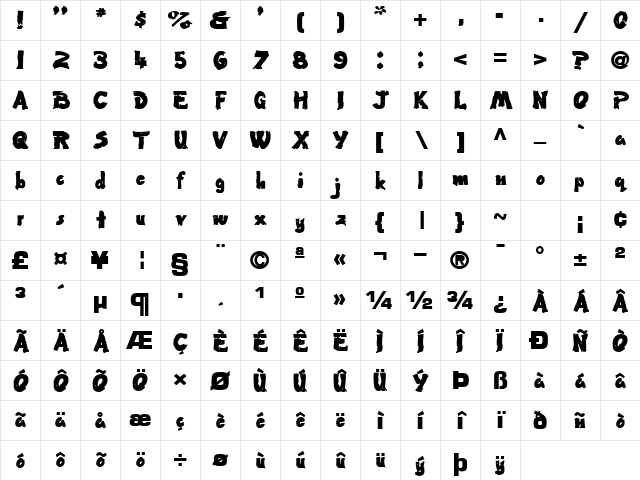
FlatBrush36 Bold Free Font
FlatBrush36 Bold
Design Context for FlatBrush36
FlatBrush36 flows with the natural rhythm of handwritten lettering, making it ideal for designs that call for warmth and personal expression. Its bold stroke weight gives it real presence on the page.
Font Pairing: Combine FlatBrush36 with a simple geometric sans for maximum contrast - the tension between flowing curves and clean structure is a classic typographic pairing.